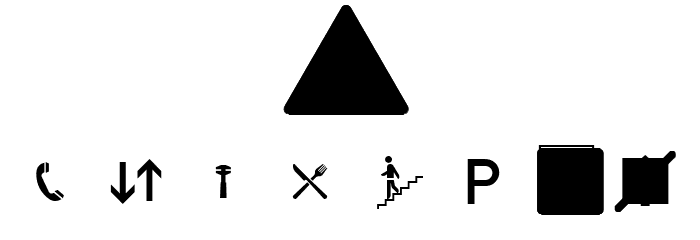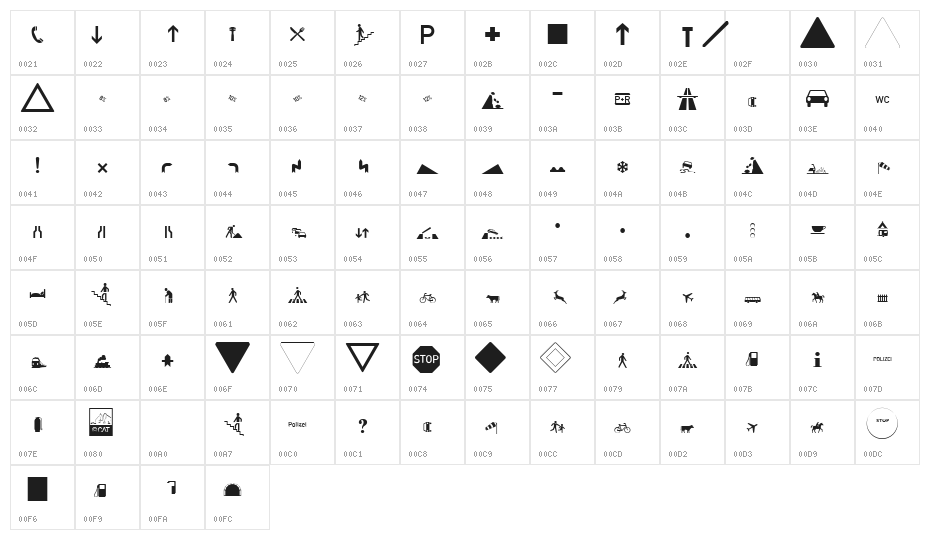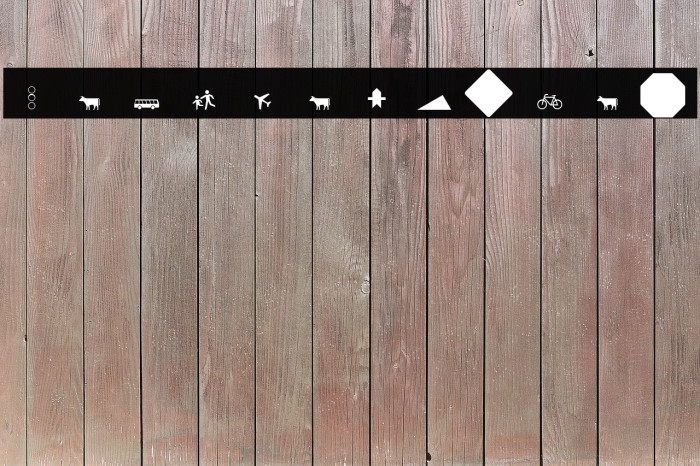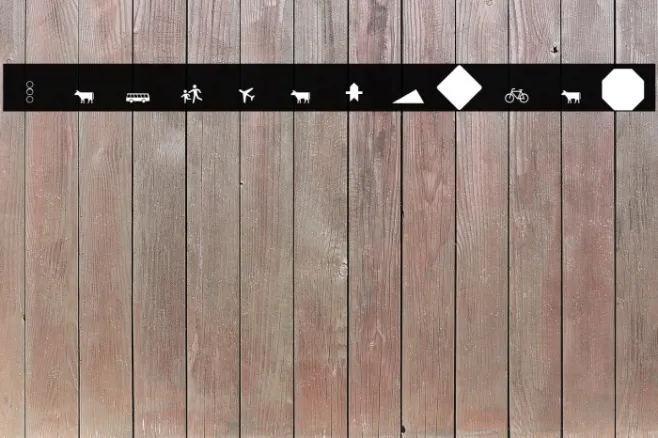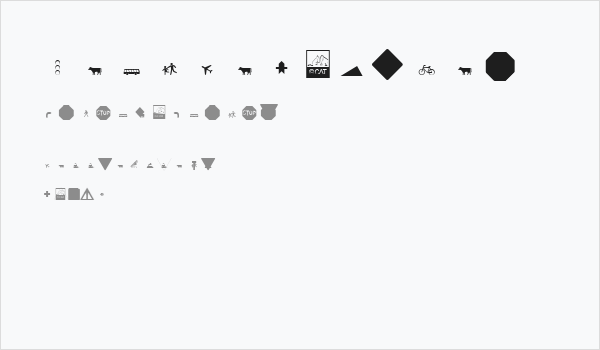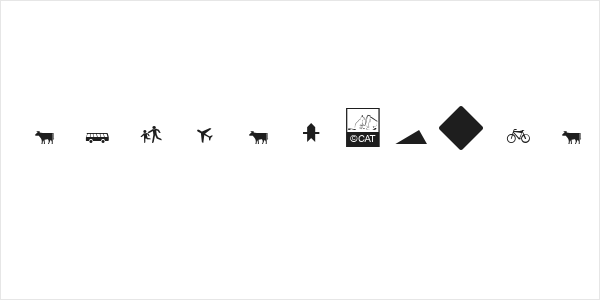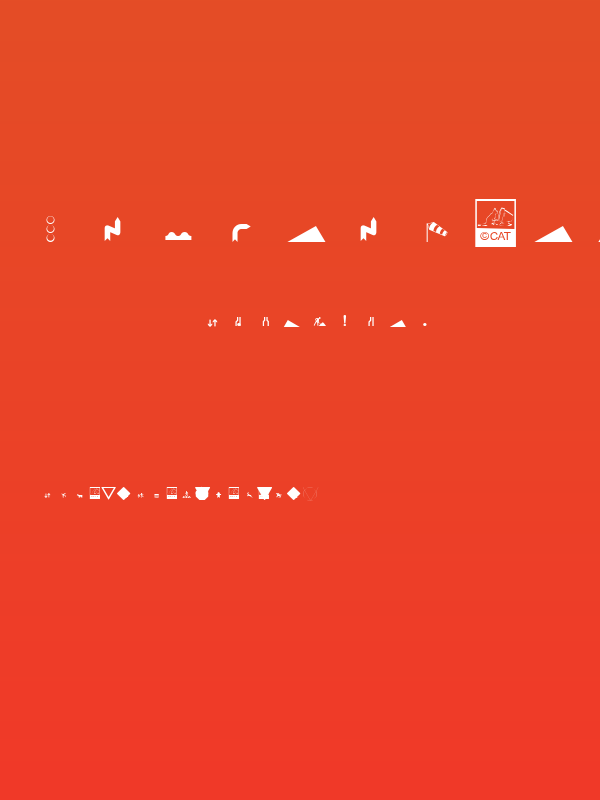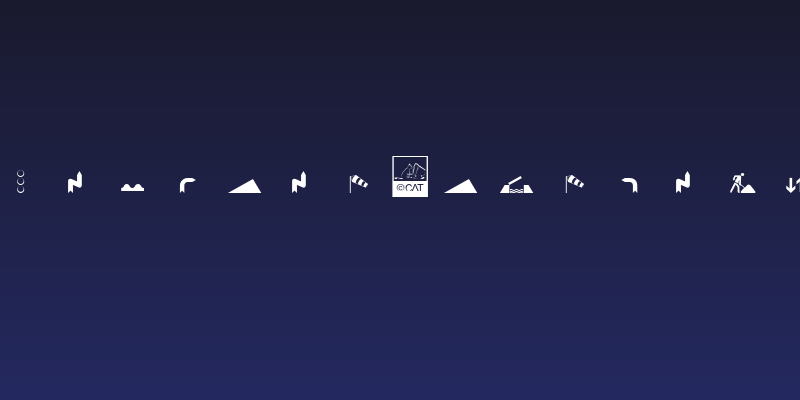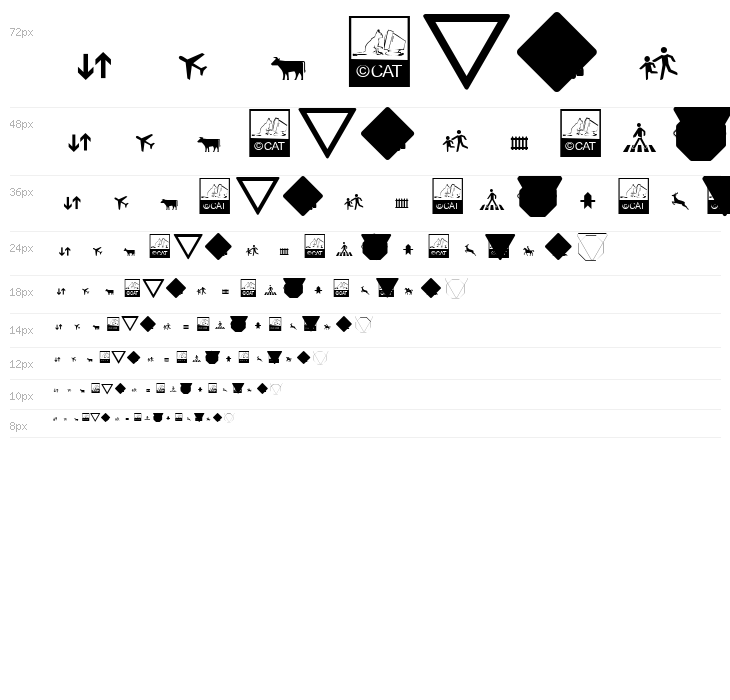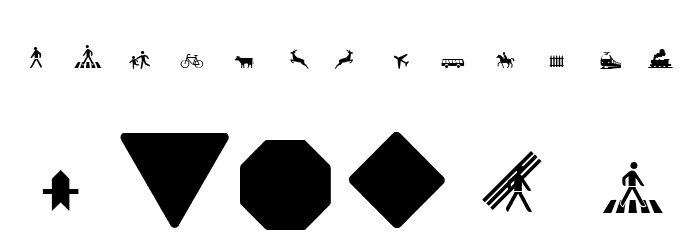
Zeichen Hundert Font
Zeichen Hundert Description
A pictogram-based symbol set featuring a variety of transportation, pedestrian, and informational icons, including arrows, geometric shapes, vehicles, animals, and signage elements. The icons are solid, high-contrast, and designed for clarity and immediate recognition.
| Overall Style | Modern, Functional, Geometric |
| Use Case | Signage, Icons, Wayfinding, Maps |
| Proposed Projects | Wayfinding systems, public signage, transportation maps, instructional graphics, infographics. |